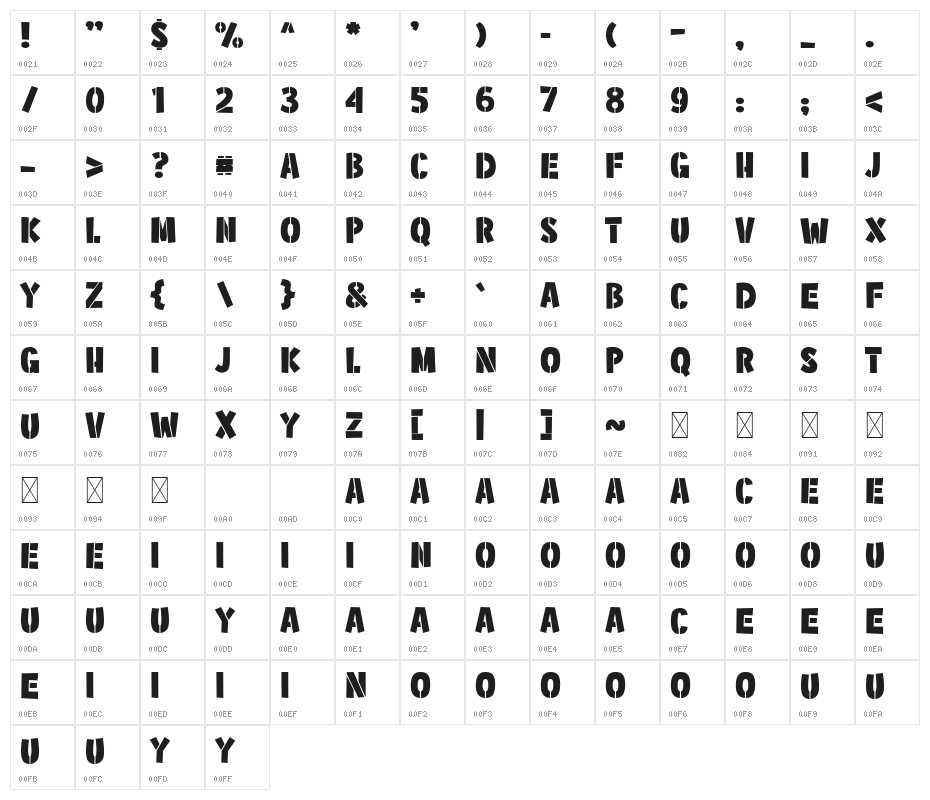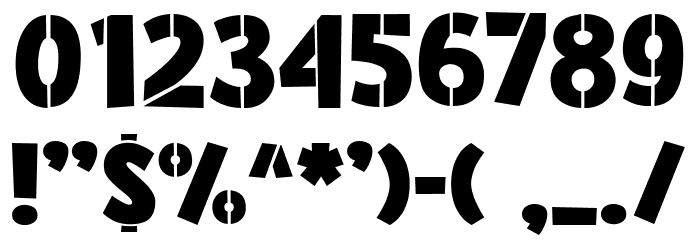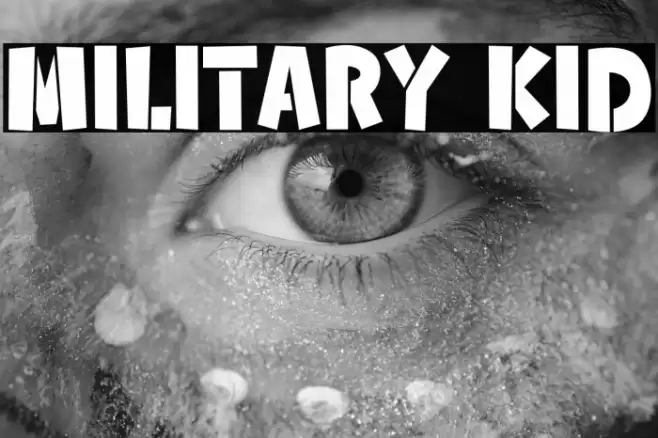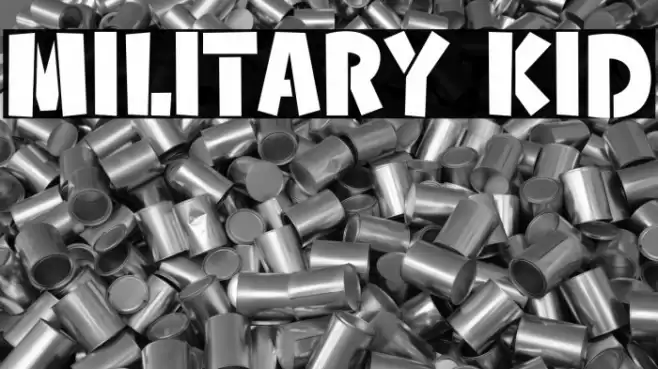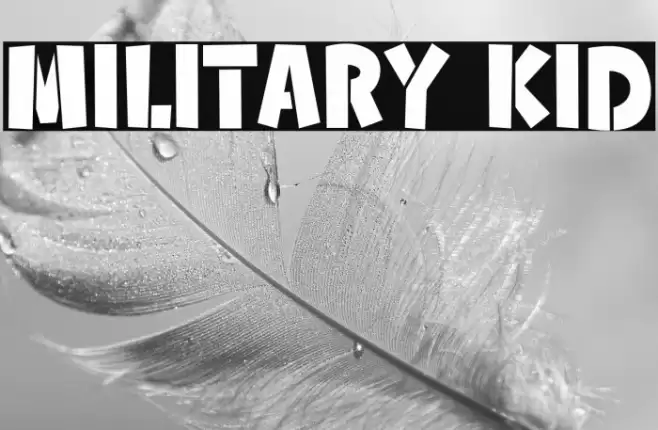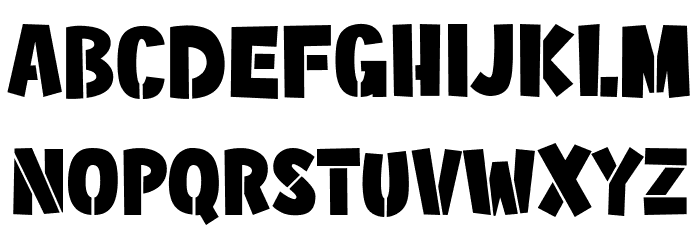
Military Kid Font
Military Kid Description
This font features a bold, stencil-like design reminiscent of military-style lettering. The characters are blocky and robust, with a distinct cut-out effect that gives them a rugged, utilitarian appearance. The uppercase letters are uniform in height, while the numbers and special characters maintain the same boldness and style. The font's design is highly legible and impactful, making it suitable for attention-grabbing headlines or signage. Its unique style evokes a sense of strength and authority, ideal for projects that require a commanding visual presence.
| Use Case | Headlines, Logos, Signage |
| Proposed Projects | Ideal for military-themed posters, signage, branding, and apparel design. |